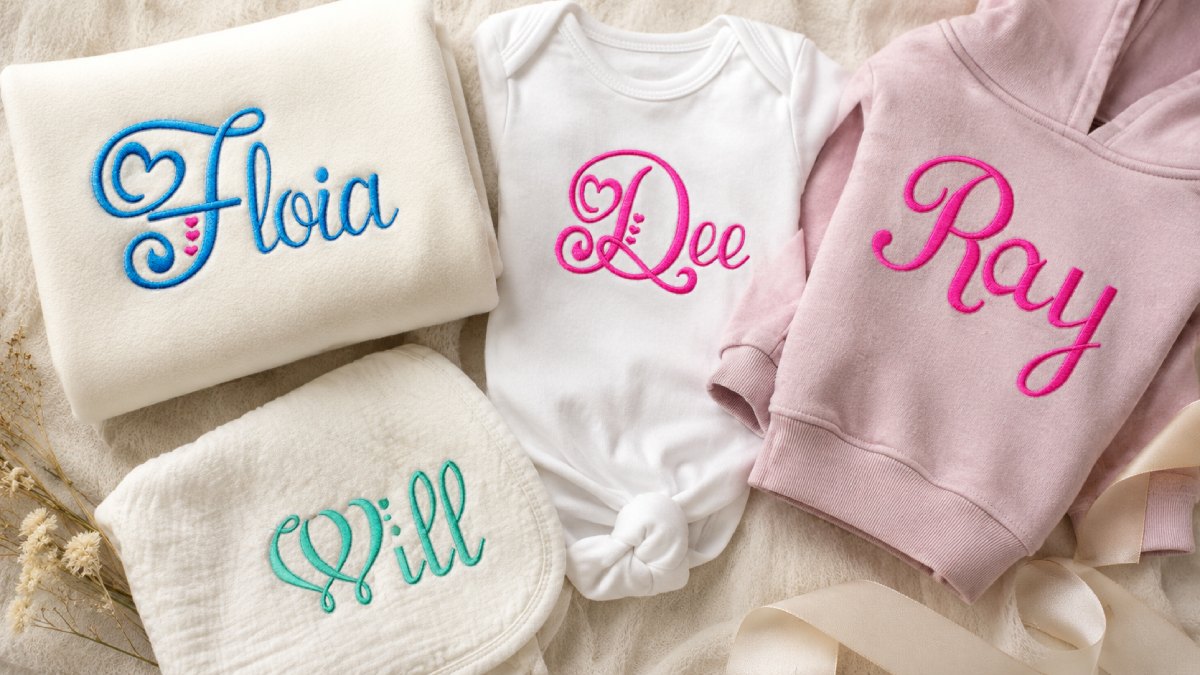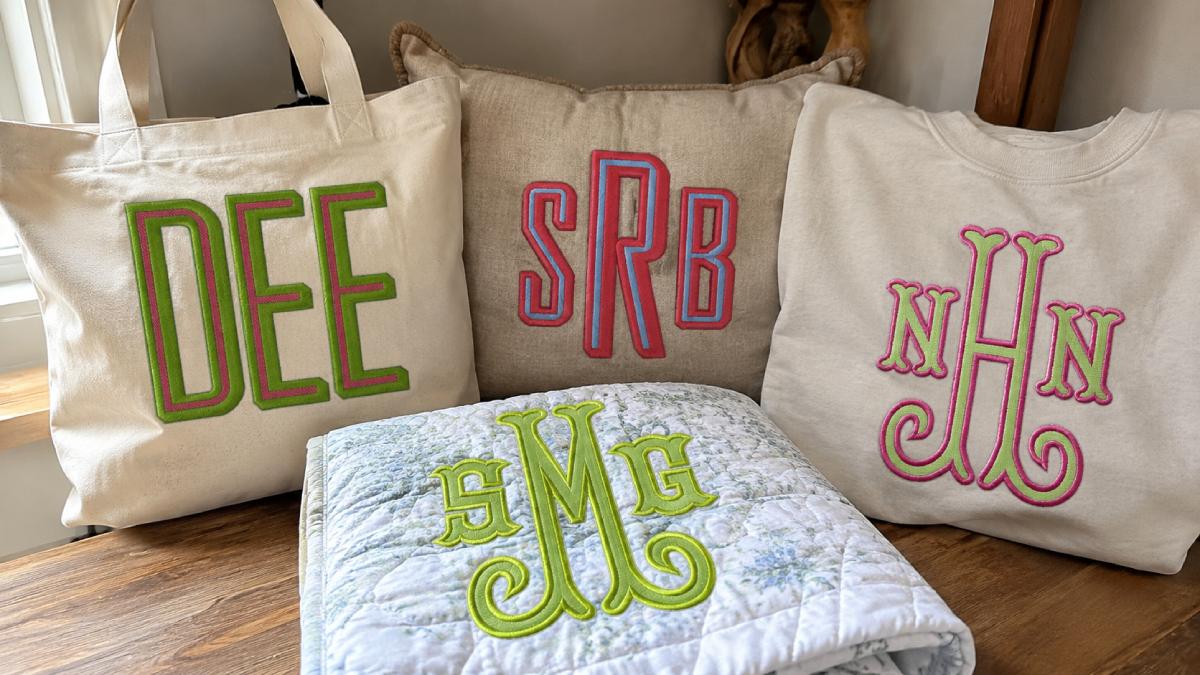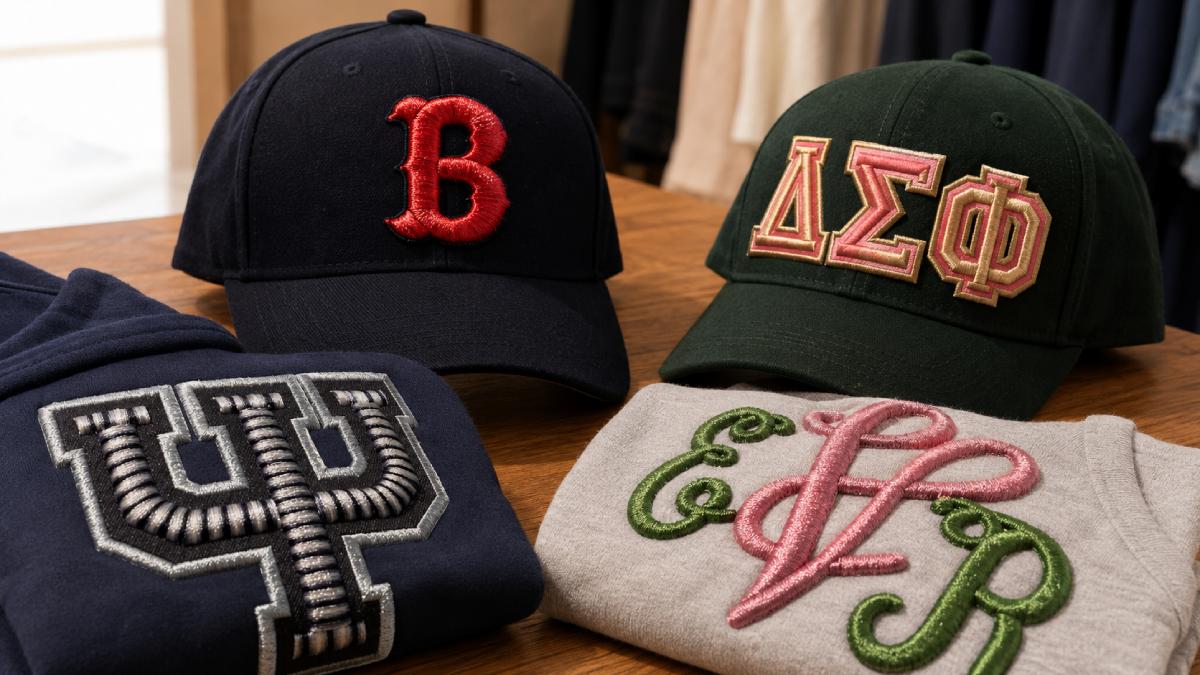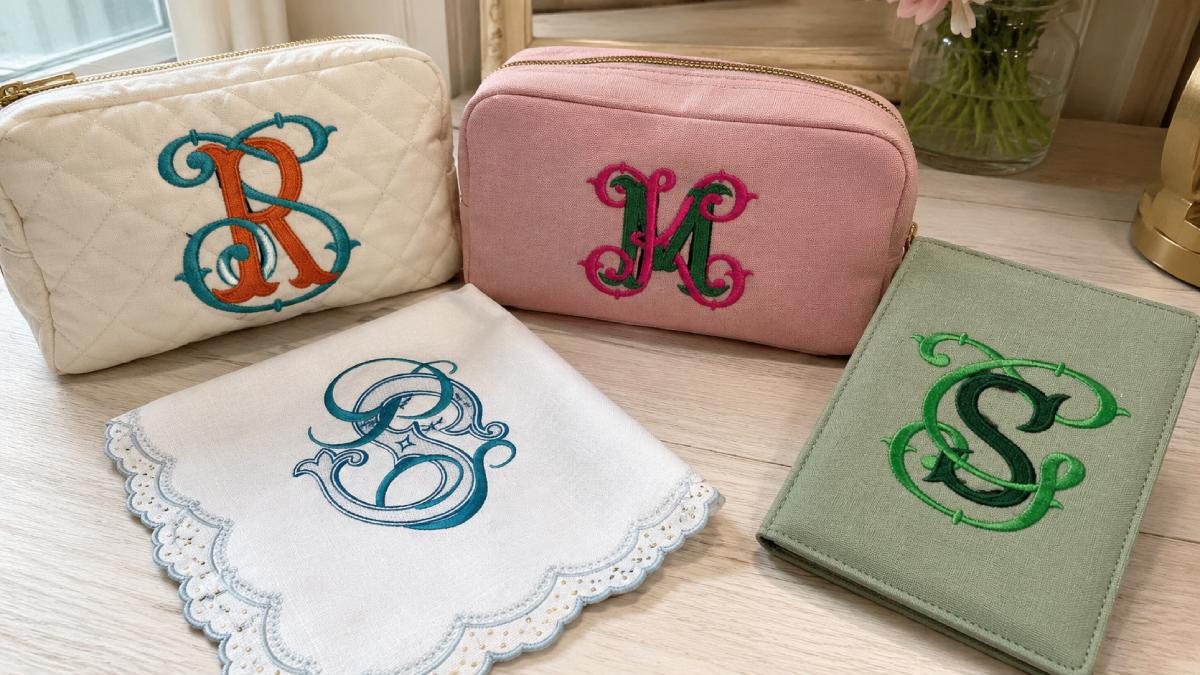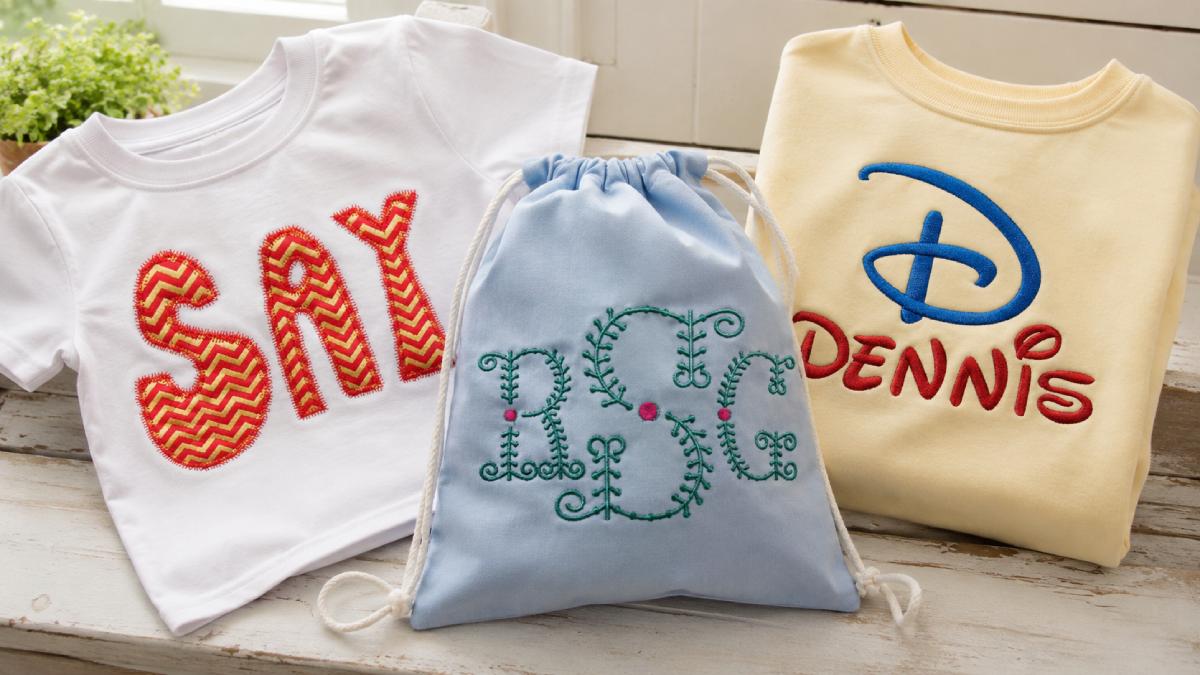
10 Embroidery Fonts For That Make Items Sell
Boutique products usually win in the details: a soft name on a baby blanket, a clean monogram on a robe, raised letters on a hat. If you are choosing embroidery fonts for boutiques, start with machine embroidery fonts that stitch well. Come browse these Apex picks for boutique-ready lettering.
10 Best Embroidery Fonts for Boutiques
Below are 10 Apex embroidery font categories that boutique stores can use to build a more practical machine embroidery font library.
Fishtail Monogram Embroidery Font for Classic Products
Best for: robes, towels, pillow covers, cosmetic bags, bridal party gifts, classic monogram products.
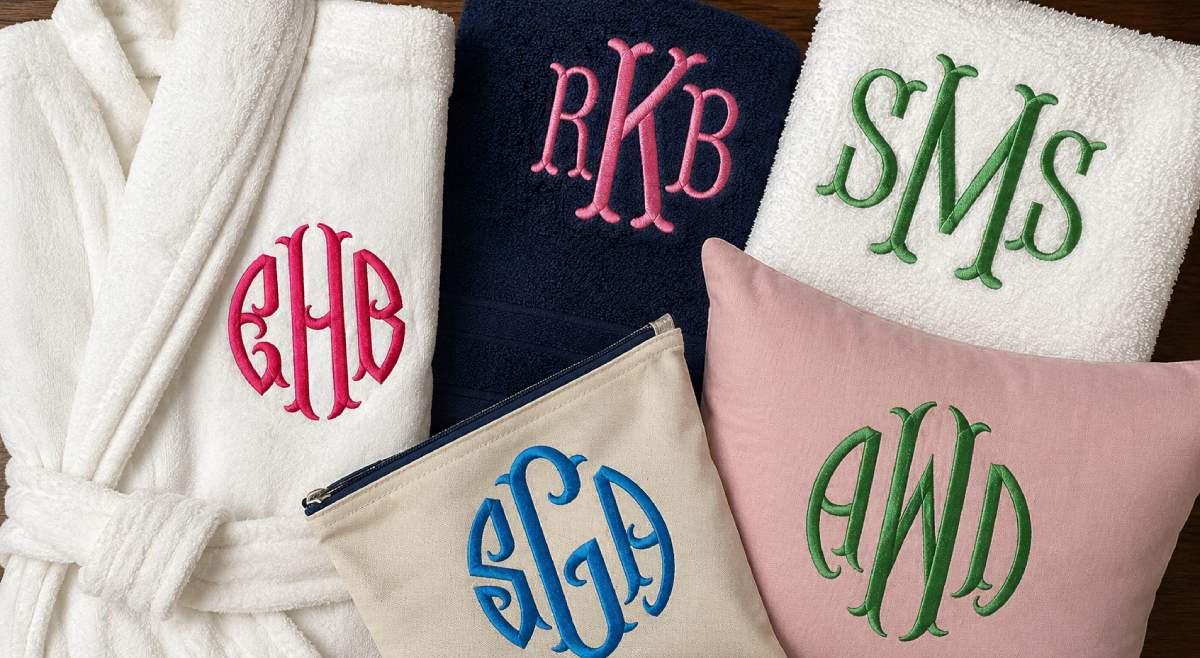
Fishtail Monogram Embroidery Font is a smart choice when the monogram is the main design. It can make one letter carry the whole product, which is exactly what you want for robes, towels, spa gifts, and bridal items.
Monogram Embroidery Fonts for Robes, Towels, and Gift Sets
Monogram embroidery fonts are one of the safest choices for boutique stores because they make simple products feel personal without needing a full name or extra artwork.
A single initial on a robe, towel, pillow cover, or cosmetic bag can already look finished.
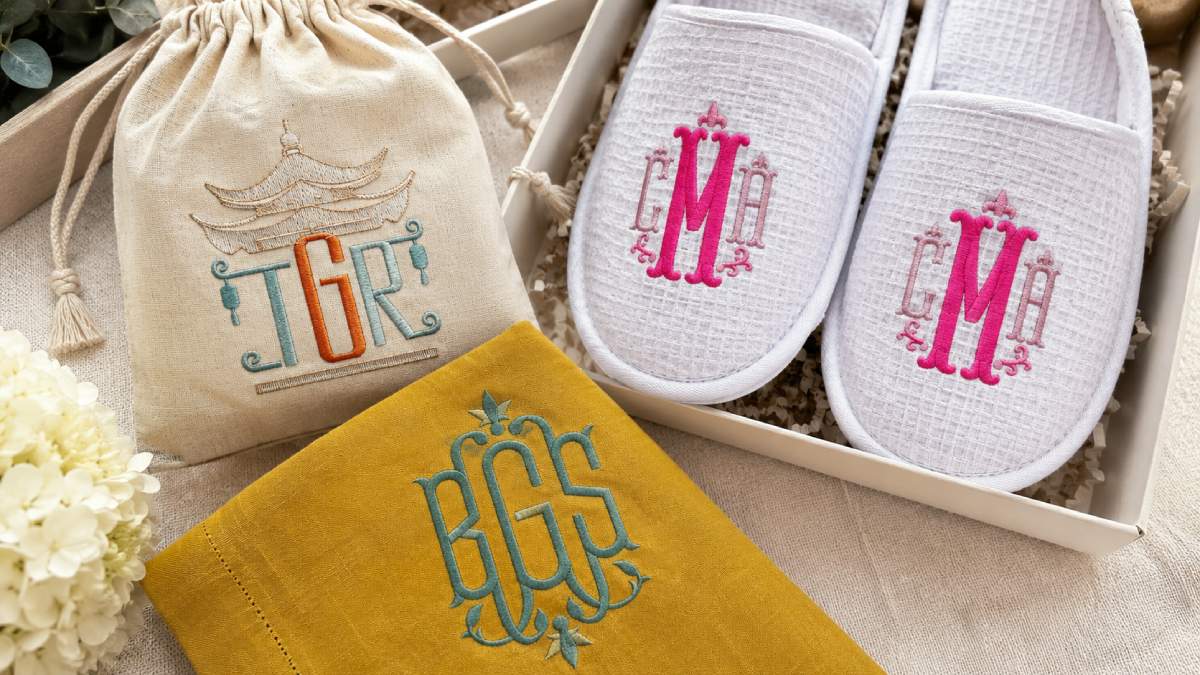
For boutique sellers, monogram fonts are useful because they are easy for customers to understand and easy to apply across many product types.
Script Embroidery Fonts for Names and Soft Personalized Gifts
Script embroidery fonts are a strong choice for boutiques that sell baby blankets, robes, children’s clothing, pouches, and keepsake gifts.
The useful thing about script fonts is emotion. A name in script can feel warm, gentle, romantic, or elegant depending on the style.
But boutiques should choose script carefully. If the letters are too thin or the name is too long, readability can suffer after stitching.
Split Embroidery Fonts for Names, Initials, and Boutique Gift Sets
Split embroidery fonts leave space inside or across the letter for a name, word, or extra detail. This makes them useful for boutique products where the customer wants both an initial and a name in one design.
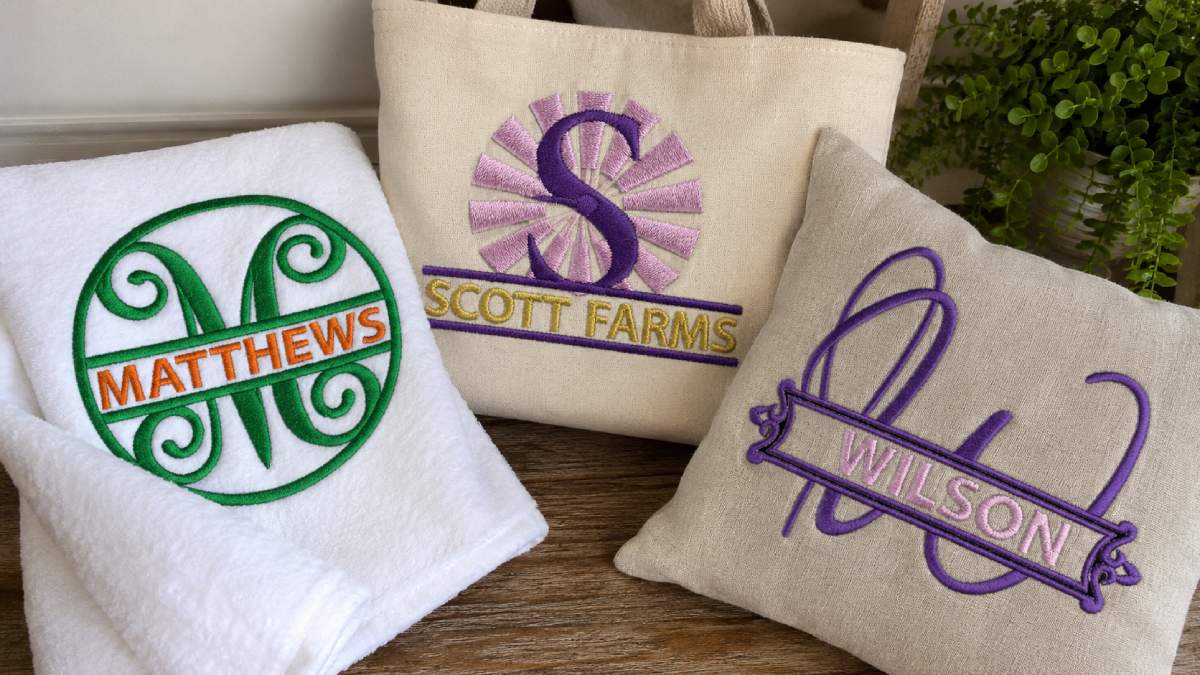
Use split fonts when you want personalization to feel layered but still easy to read.
Applique Embroidery Fonts for Large Names and Statement Pieces
Applique embroidery fonts are ideal when you want the lettering to take up more space without relying only on thread.
Instead of stitching a full filled letter, applique uses fabric as part of the design, which can make the final product feel bigger, softer, and more textured.
This is useful for sweatshirts, tote bags, nursery items, blankets, and large-name boutique gifts.
Use applique fonts when the product needs to feel bold, custom, and more visually substantial.
3D Puff Embroidery Fonts for Hats and Bold Apparel
3D puff embroidery fonts are made for raised, dimensional lettering. This style works especially well on hats, caps, sweatshirts, varsity-style apparel, and boutique products that need a stronger visual impact.
For boutique sellers, 3D puff is useful because texture itself becomes part of the product value. Customers can see and feel the difference.
But this style needs space. It is not the best choice for tiny names or very delicate lettering.
Interlocking Monogram Fonts for Classic Three-Letter Personalization
Interlocking monogram fonts are useful when a boutique wants a more traditional, high-end personalized look. Instead of placing initials side by side, the letters connect into one more decorative design.
Legible Embroidery Fonts for Names Customers Must Read Clearly
Legible embroidery fonts are useful for boutique products where clarity matters more than decoration.
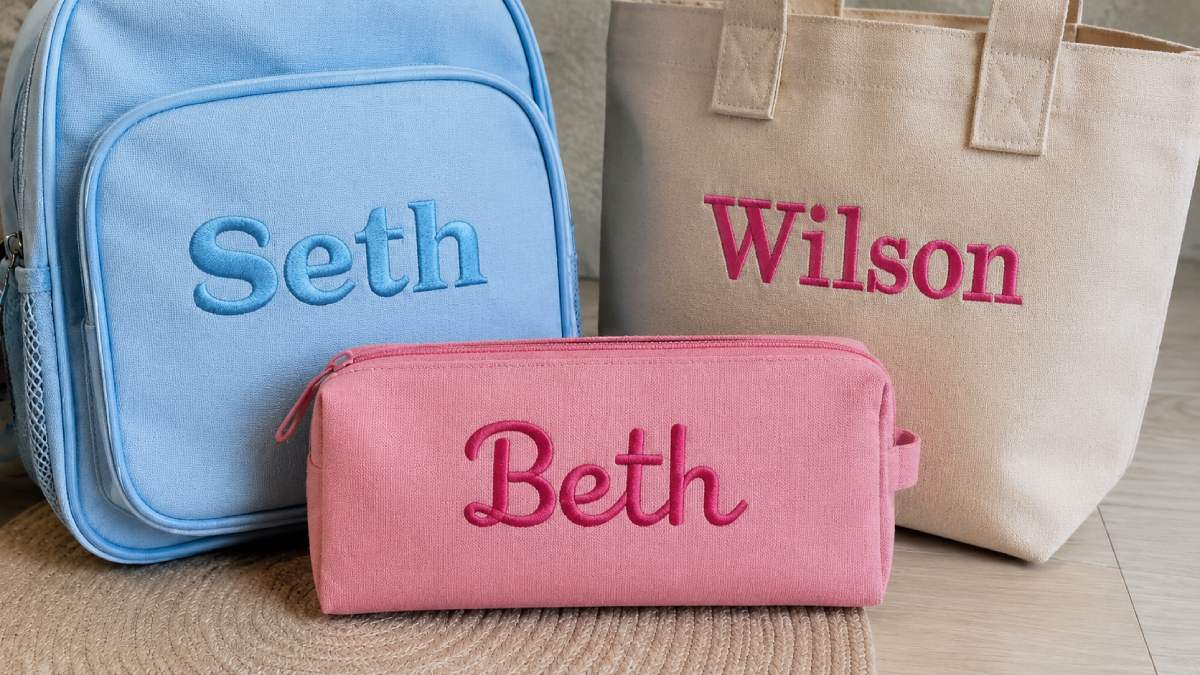
For boutique sellers, this category is easy to overlook because it may not look as exciting as script or monogram fonts. But in real production, readable lettering often sells better because customers can see the name clearly after stitching.
Block Embroidery Fonts for Clean Everyday Boutique Apparel
Block embroidery fonts work well for sweatshirts, jackets, tote bags, kids’ apparel, team-style items, and casual boutique drops.
They give the design a clear, confident look without feeling too decorative.
Block fonts also pair well with simple names, initials, short words, and bold placement across apparel.
Whimsical Embroidery Fonts for Kids, Gifts, and Fun Collections
Whimsical embroidery fonts are a good fit for boutiques that sell playful products: birthday shirts, children’s bags, baby gifts, holiday pieces, or cheerful accessories.
The ten embroidery fonts for boutiques above are a strong starting point, but your boutique may need more than one look.